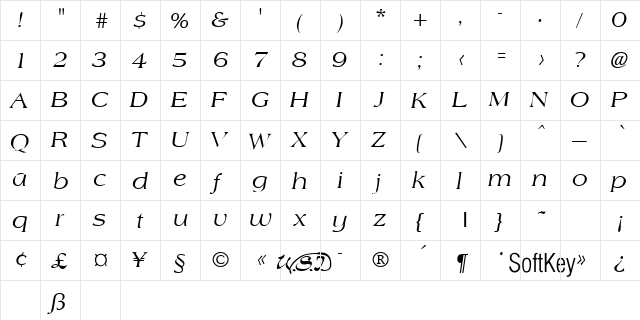
One Way Out 3 Regular
One Way Out 3 is a composed and adaptable typeface that performs quietly and consistently across a wide range of design contexts.